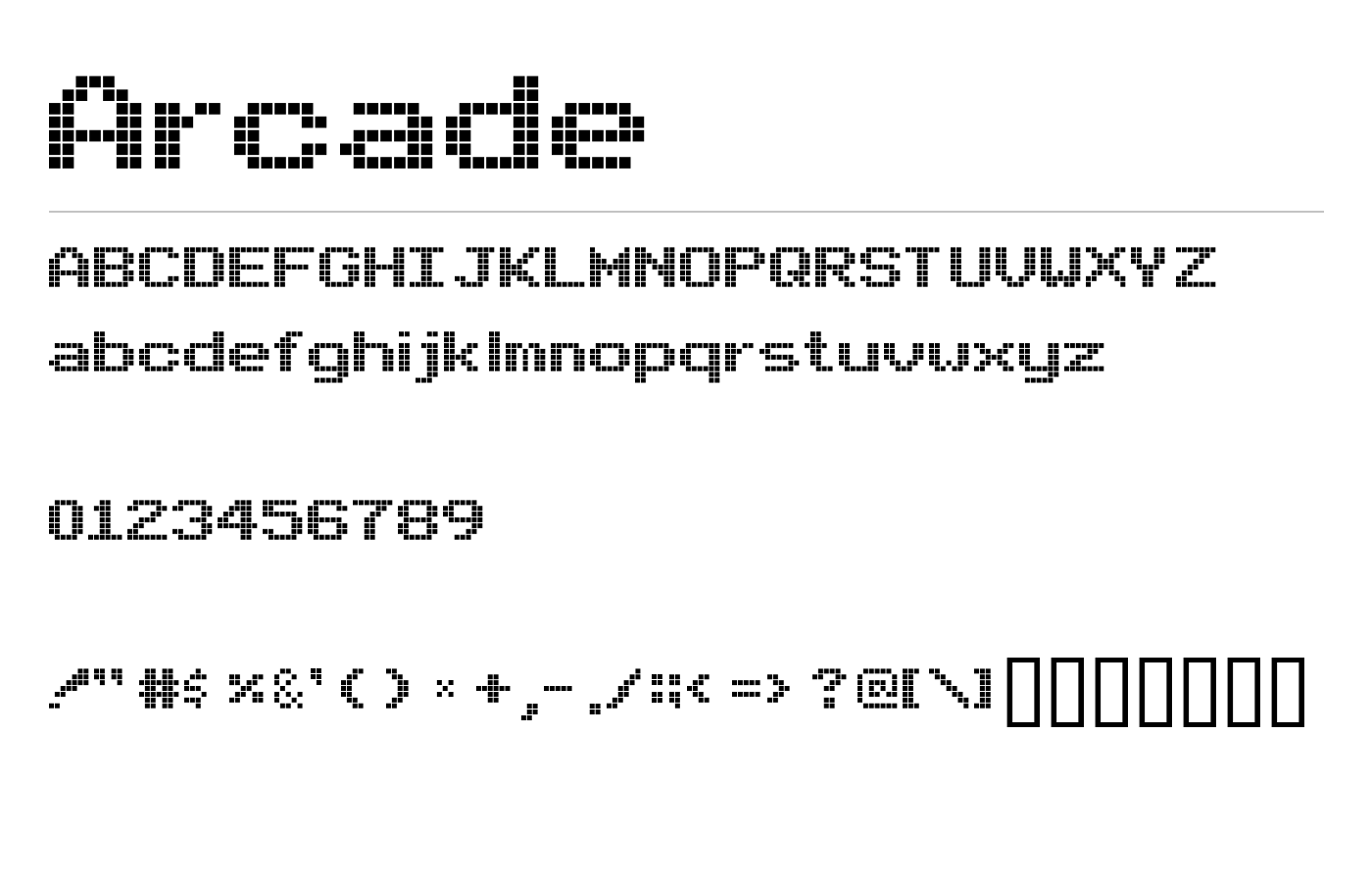
Arcade is a pixel-style sans serif font that captures the nostalgic feel of classic video games with its blocky, geometric letterforms made of small square pixels. Its monospaced, rigid design gives it a retro, digital vibe perfect for projects related to gaming, tech, or anything that seeks a fun, vintage arcade atmosphere. This font works best for headlines, logos, and graphic designs that want to evoke a playful yet tech-inspired mood.
Arcade Font